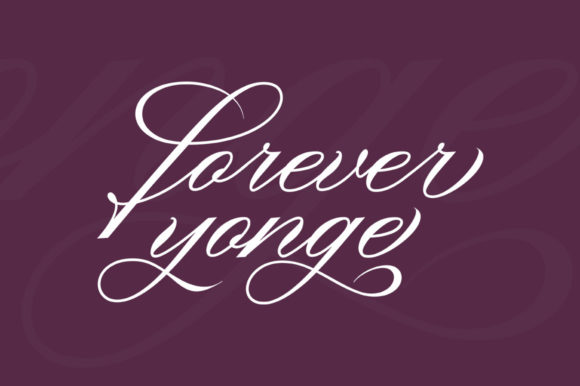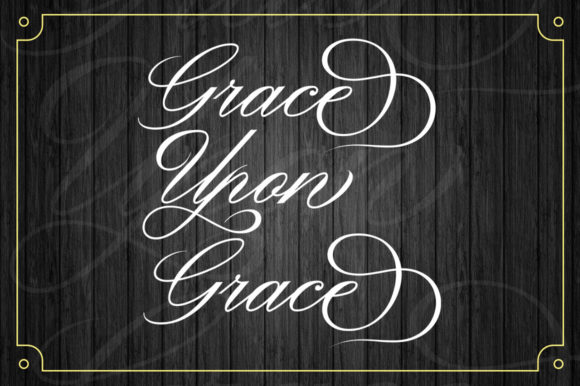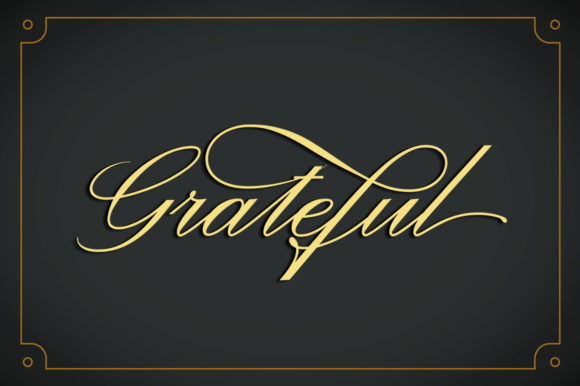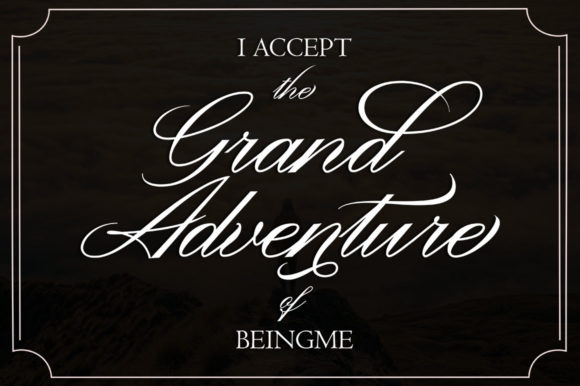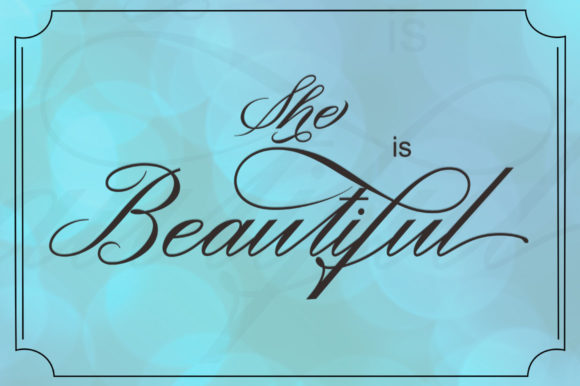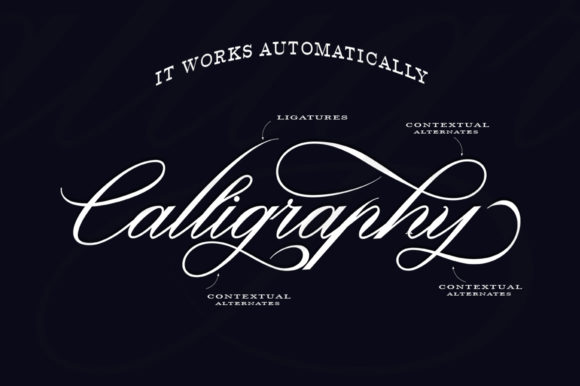
The Perfect Script for Your Next Masterpiece
As a designer, have you ever found yourself stuck in front of a blank page, waiting for the perfect font to spark your creativity? For me, it was the moment I stumbled upon the Futhura Script Font, and everything changed. Its elegant, sensual feel transported me to a world of possibilities, and I knew I had to dive in.
The Futhura Script Font is a beautiful calligraphy script, designed to add a touch of sophistication and romance to any project. With its classic style and gorgeous alternative characters, it’s the perfect choice for formal designs, from invitations and labels to menus and logos. As a designer, you’ll appreciate the versatility and elegance it brings to your work, making it a valuable addition to your toolkit.
Futura Script Font Key Features
- Unique Characteristics: Elegant, cursive script font with a modern and sophisticated look, ideal for creative projects, invitations, and logos
Futura Script Font Review
Overall, I think Futura Script Font is a decent choice for creative projects, but it has its limitations.
- Cursive feel: The font successfully captures a cursive aesthetic, which is perfect for projects that require a touch of elegance.
- Legibility: Despite its script nature, Futura Script Font is surprisingly legible, making it suitable for body text.
- Customization options: The font comes with a range of weights and styles, allowing designers to customize it to suit their needs.
- Font size limitations: The font can become difficult to read at very small sizes, which may be a concern for designers who need to use it in small text.
- Lack of versatility: While the font is great for creative projects, it may not be the best choice for more formal or technical projects.
I would recommend Futura Script Font to designers who are looking for a cursive font with a touch of elegance. However, it’s essential to consider the limitations and use it wisely. With the right project, this font can be a great addition to your design arsenal.
Tips: Use the Futura Script Font for titles and headings to add a touch of elegance to your design.
Tips: Use the Futura Script Font for custom typography and logos to create a unique and eye-catching design.
Tips: Use the Futura Script Font for titles, headings, and body text to add a touch of sophistication to your presentation or document.
The Futura Script Font is ideal for:
– Fashion and beauty branding
– Luxury and high-end design
– Wedding and event invitations
– Artistic and creative projects
Tips: Experiment with different font sizes, colors, and combinations to create a unique and visually appealing design.
Alternatives to Futhura Script Font
Playfair Display is an elegant and luxurious script font ideal for use in high-end branding, advertising, and editorial designs. Its intricate details and ornate flourishes make it perfect for creating a sense of sophistication and refinement.
Compared to Futhura Script Font, Playfair Display has a more ornate and luxurious feel, making it suitable for use in high-end branding and advertising. However, it may be more challenging to read in smaller sizes due to its complex details.
Lobster
Lobster is a modern and stylish script font that is perfect for use in digital designs such as websites, social media, and mobile apps. Its clean lines and simple design make it easy to read and recognize, even in smaller sizes.
Compared to Futhura Script Font, Lobster has a more modern and minimalist feel, making it suitable for use in digital designs. However, it may lack the elegance and sophistication of Futhura Script Font.